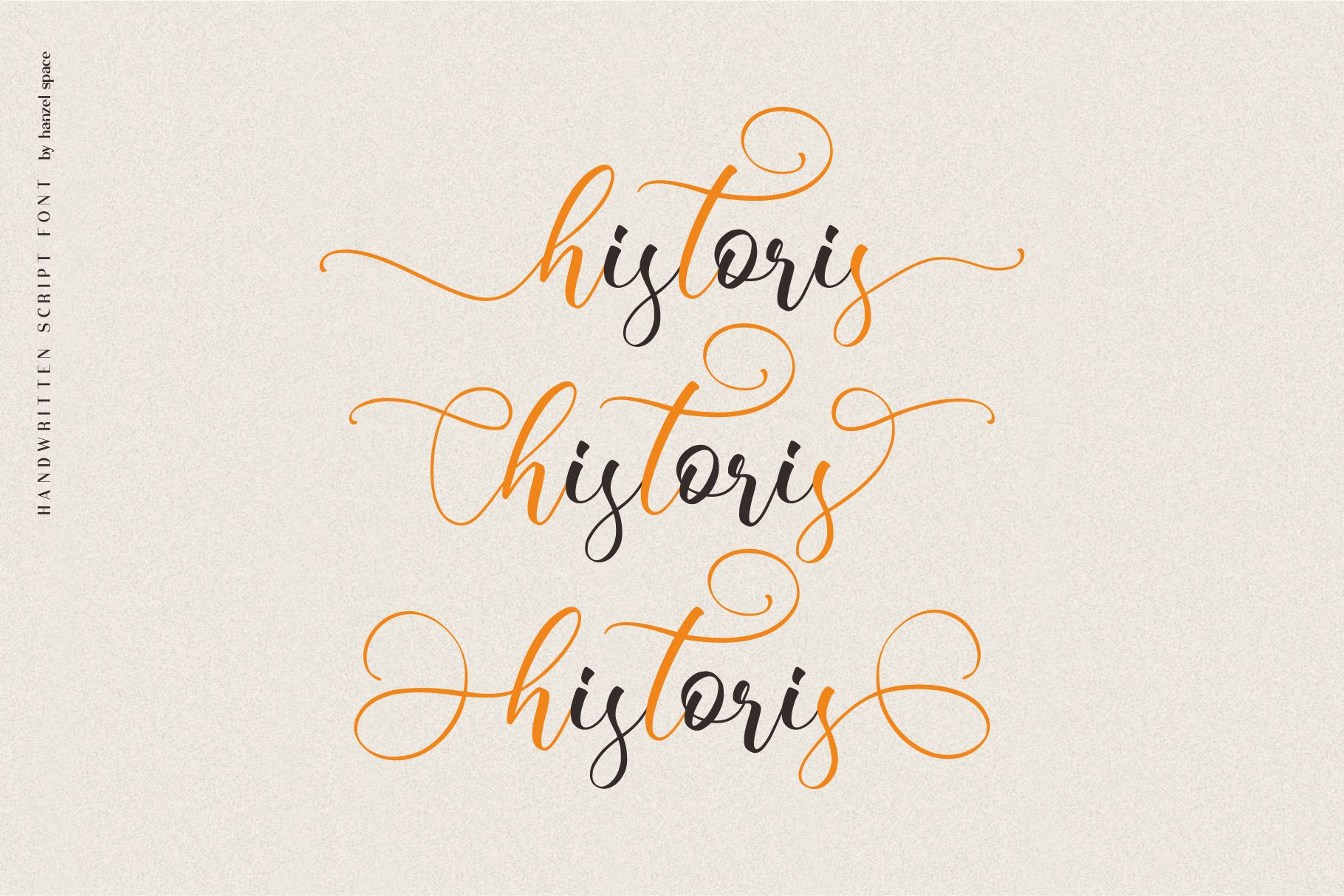
Historis Script Font
This calligraphy harmony gives the impression of being luxurious, free and sophisticated.
Historis contains opentype features such as stylistic alternates, swashes & ligatures. Perfect for logo, printed quotes, badges, insignia, packaging, headline, poster, t-shirt / apparel, greeting card, and wedding invitation, & etc
A modern and stylish handcrafted signature font that’ll make your audience swoon and enhance your projects. Every stroke and curve was created to capture the essence of modernity and style. This gorgeous and stylish font can be used for a host of different content needs and projects. Ideal for social media posts and ads, printed quotes, t-shirt designs, packaging, or even as a modern text overlay to any background image. Rellington Handwritten Font includes Multilingual Options to make your branding globally acceptable.
• Standard Ligatures
• Stylistic Sets
• Numerals and Punctuation